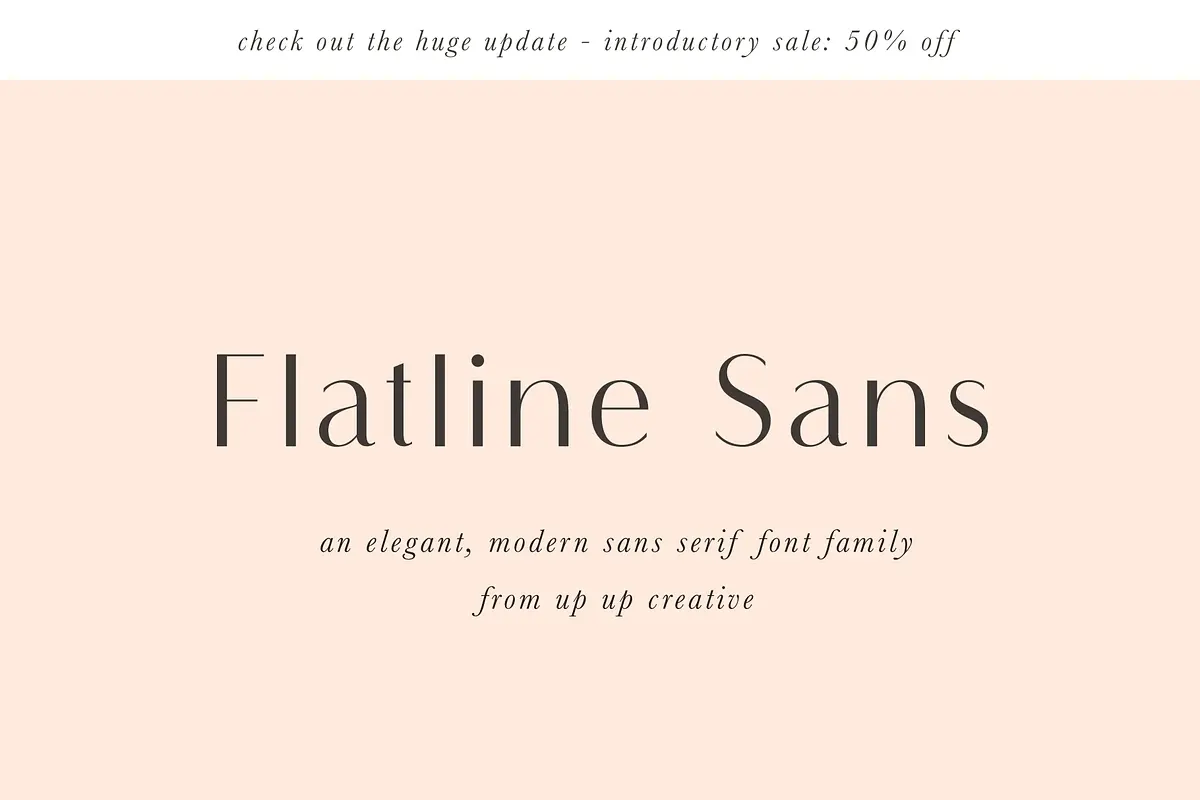
With a comprehensive set of fonts, from light to bold, this family ensures that your designs are both impactful and readable. The fonts include uppercase and lowercase letters, numerals, punctuation, and multilingual support, giving you complete flexibility for any project.
Whether you're designing a sleek brand identity, crafting a clean editorial layout, or building a modern website, Flatline Sans Complete brings professional style and readability to your typography.